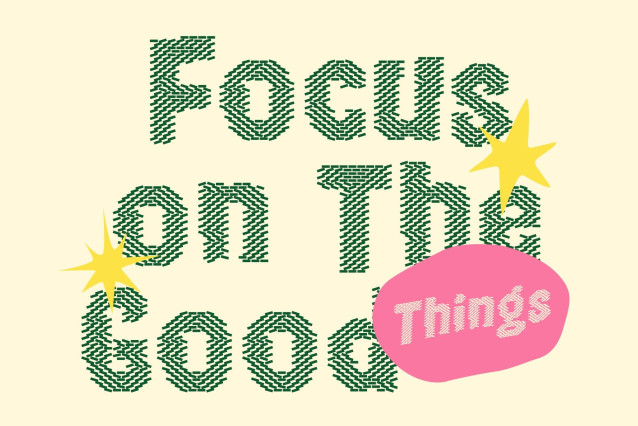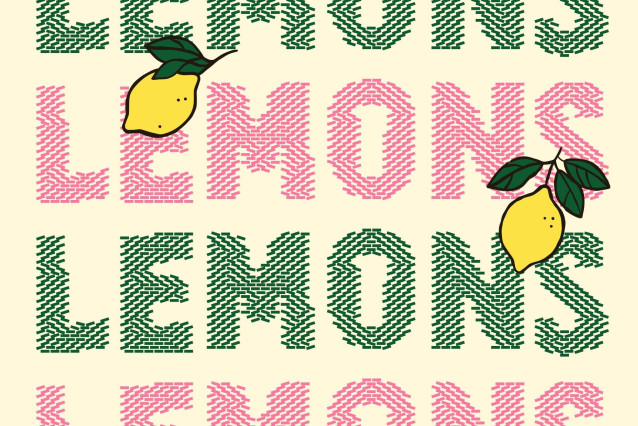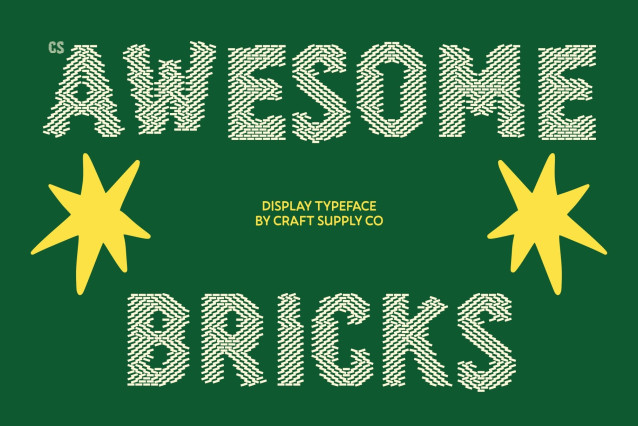
CS Awesome Bricks Font
CS Awesome Bricks – Modern Sans Serif Font: Where Playful Creativity Meets Architectural Fun
Bold Contemporary Shapes with Cheerful Personality
This is a modern sans serif font designed with bold playful shapes and a lively contemporary style. Its rounded forms and energetic structure create a cheerful and engaging visual personality that feels fun, approachable, and highly expressive. Every character radiates creativity and excitement, making the font perfect for vibrant and imaginative design projects.
Brick-Inspired Texture with Decorative Character
This font creates the impression that each letter is constructed from decorative bricks. This textured detailing adds structure, depth, and tactile charm while maintaining the clean readability of the sans serif base. The result is a unique visual style that feels both playful and architecturally inspired.